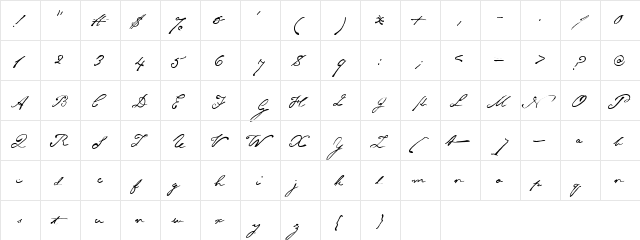
AL Gettysburg Regular Font Preview
AL Gettysburg Regular
AL Gettysburg Regular Font Details
Design Context for AL Gettysburg Typeface
AL Gettysburg is a composed and adaptable typeface that performs quietly and consistently across a wide range of design contexts.